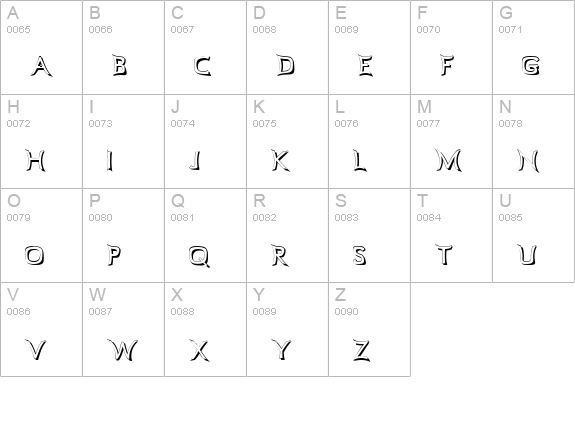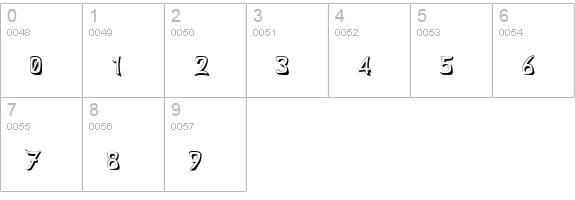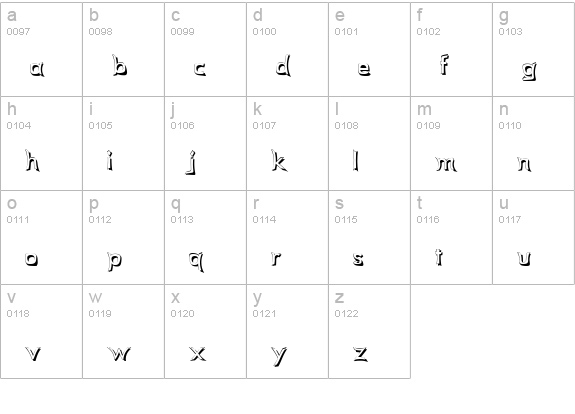
Comicbook Smash Font Details
Comicbook Smash font is a dynamic and lively typeface that perfectly captures the essence of classic comic book lettering. With its bold and energetic style, this font is sure to make your designs stand out with a playful and fun flair. Whether you're creating posters, comic strips, or any other type of graphic design, Comicbook Smash font will inject a sense of excitement and creativity into your work. The best part? Comicbook Smash font is completely free to download at FontsMarket.com! Just head to the website and grab this fantastic font to bring a touch of comic book magic to your projects. Don't miss out on this amazing opportunity to add a splash of whimsy and charm to your designs with Comicbook Smash font.